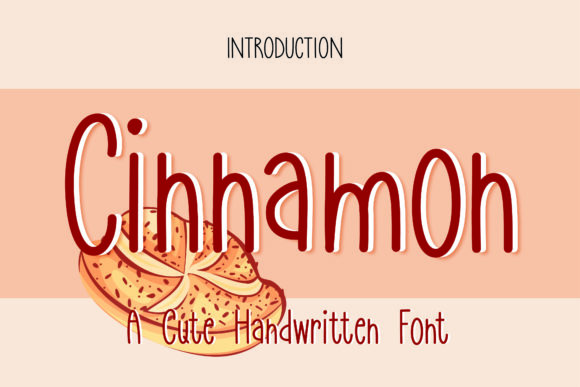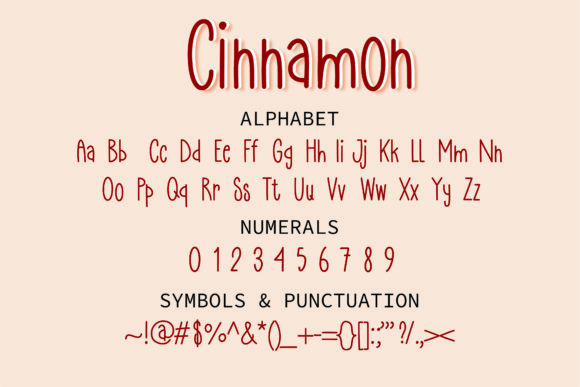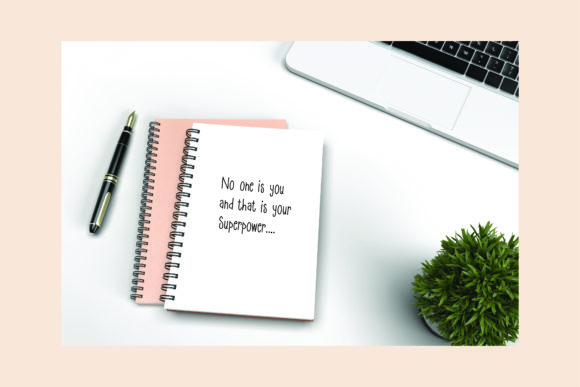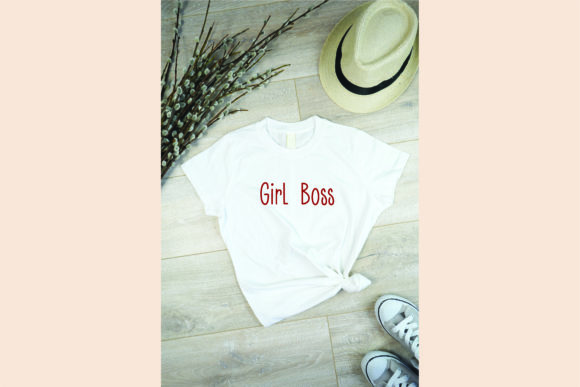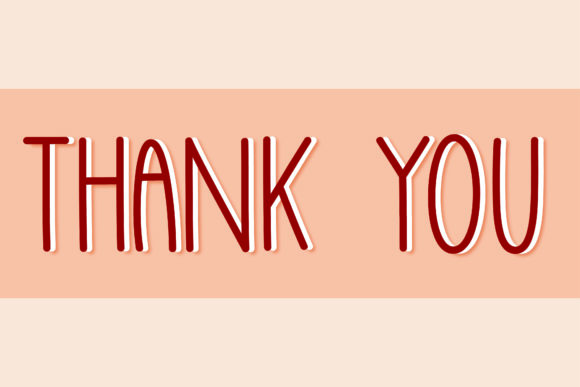
Cinnamon Font
About Cinnamon Font
CinnamonĀ is a cute and simple lettered handwritten font that can be used for all chalkboard quotes or teaching material! Its authentic look will add a personal and realistic feel to your designs.